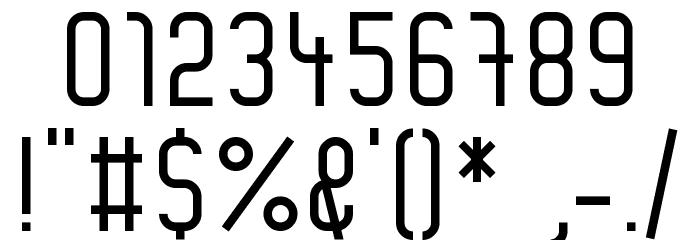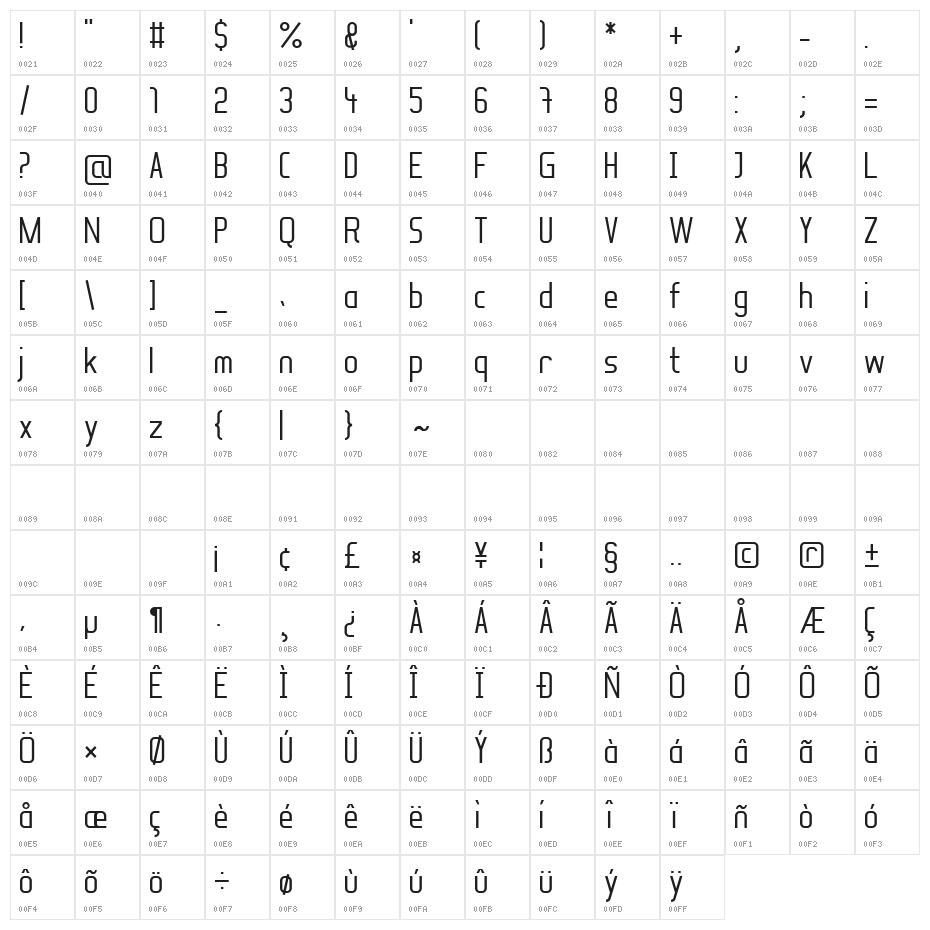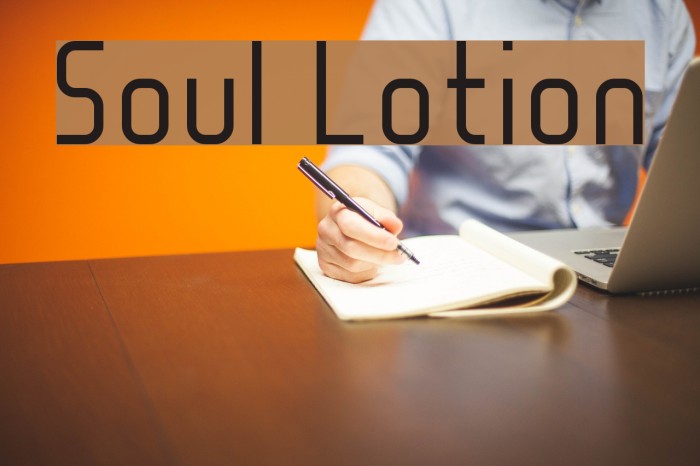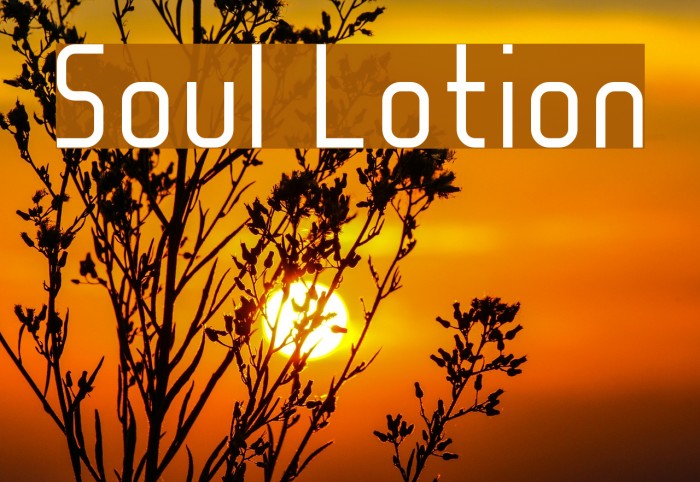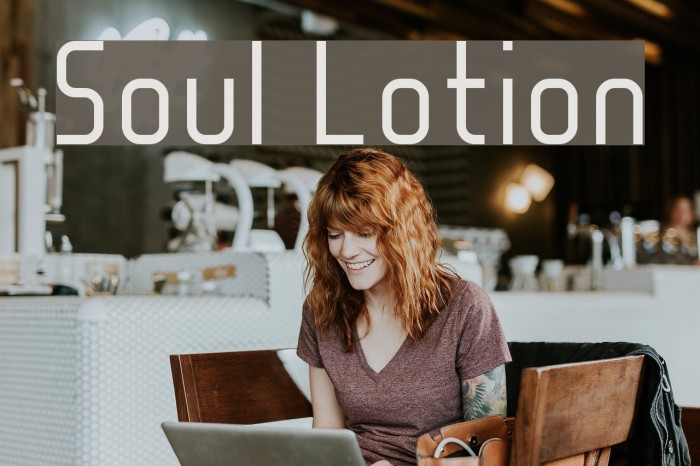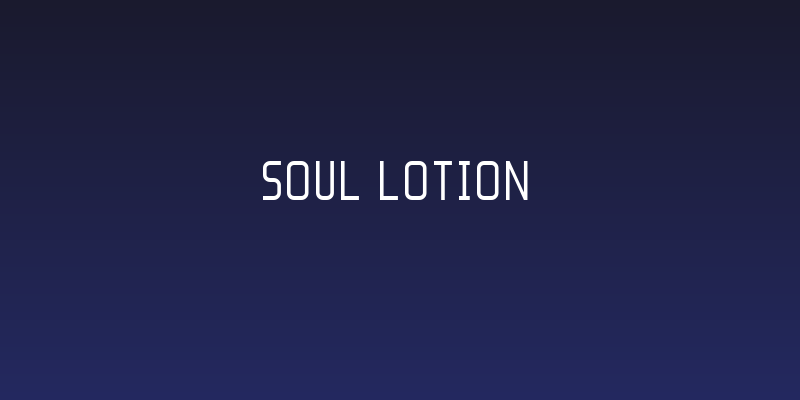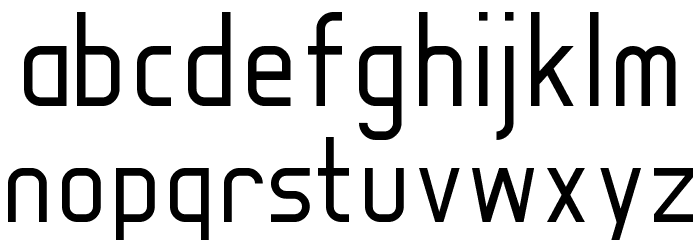
Soul Lotion Font
Soul Lotion Description
This font features a clean, geometric design with a modern aesthetic. The characters are uniform in width, giving it a monospaced appearance, although it is not strictly monospaced. The uppercase letters are tall and narrow, while the lowercase letters maintain a consistent height, creating a harmonious balance. The numerals are distinct and align well with the overall style. Special characters are designed with the same geometric precision, making them easily recognizable. The font's simplicity and clarity make it suitable for a wide range of applications, from digital interfaces to print media. Its modern look is enhanced by the absence of serifs, and the consistent stroke width provides a sleek and professional appearance.